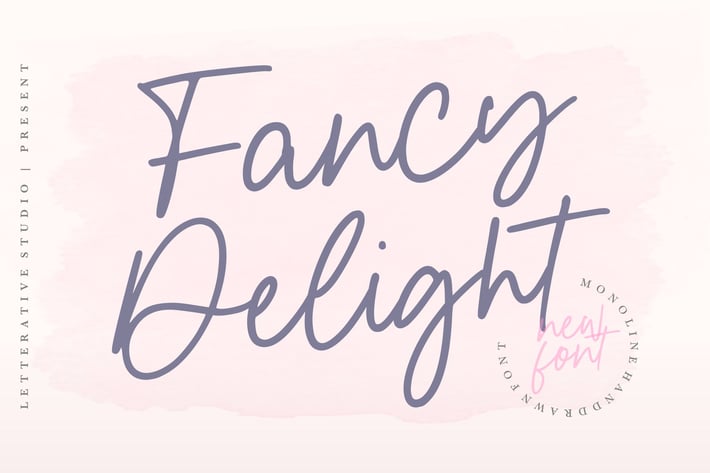
Fancy Delight - Handdrawn Logo Font
Introducing by Balpirick Studio : Fancy Delight Font
Fancy Delight is a Monoline Handdraw Font
Fancy Delight is perfect for product packaging, branding project, megazine, social media, wedding, or just used to express words above the background.
Fancy Delight also multilingual support